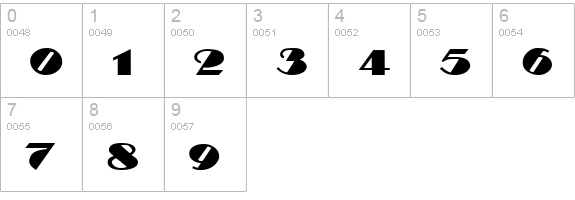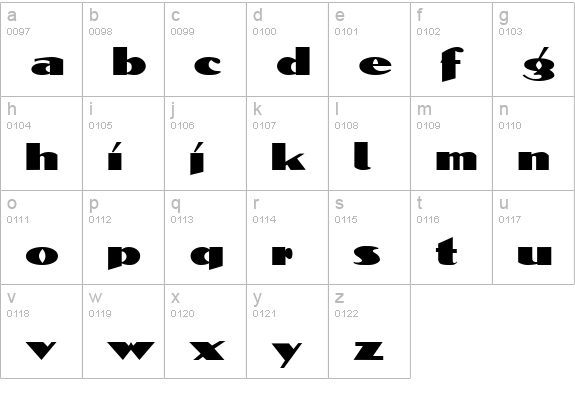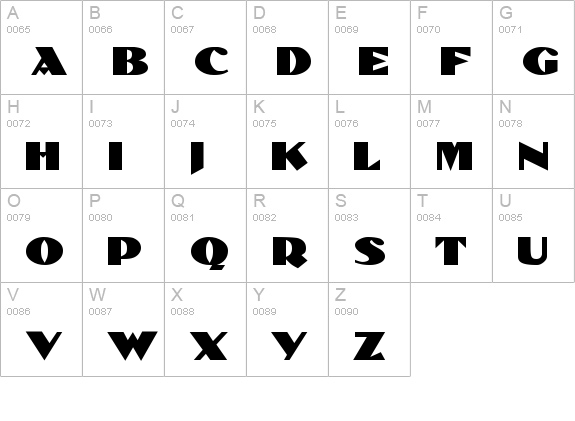
BlockCalligraphyExtended Normal Font Details
BlockCalligraphyExtended Normal is the standard, neutral variant in the BlockCalligraphyExtended typeface family \xE2\x80\x94 well suited to general body text, paragraphs, and standard typographic work.
BlockCalligraphyExtended Normal font is a stunning display typeface that combines traditional calligraphy elements with a modern block style. This unique font features elegant, flowing strokes that create a harmonious balance between classic and contemporary design. Perfect for adding a touch of sophistication to your projects, this font is ideal for logos, branding, invitations, and more. The best part? BlockCalligraphyExtended Normal font is available for free download at FontsMarket.com. Embrace the beauty and versatility of this font in your designs today!